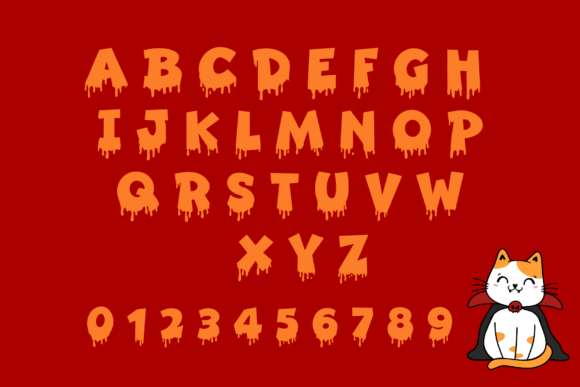
Unleash the Spooky Charm with Catcula Font: A Whimsical Decor Font for Halloween and October-Themed Celebrations
Are you looking for a font that can add a touch of mystery and festive spirit to your designs? Look no further than Catcula, a whimsically-shaped decor font that is perfect for Halloween and October-themed celebrations. In this article, we will explore the unique features of Catcula and how it can elevate your creative endeavors.
The Origin of Catcula: A Font Born out of Whimsy and Festivity
Catcula is a decor font that is crafted to evoke the spirit of Halloween and October-themed celebrations. Its unique design is inspired by the playful and mysterious elements of the season, making it an ideal choice for designers who want to create eye-catching and engaging content.
The font’s whimsical shape is sure to capture the attention of your audience and add a touch of festivity to your designs. Whether you’re creating invitations, posters, or social media graphics, Catcula is the perfect gateway to enliven your creative endeavors with a touch of mystery.
Key Features of Catcula: A Font that Embodies the Spirit of Halloween
So, what makes Catcula stand out from other fonts? Here are some of its key features:
- Whimsical Design: Catcula’s unique design is inspired by the playful and mysterious elements of Halloween and October-themed celebrations.
- Festive Spirit: The font exudes a distinctively festive spirit, making it perfect for designs that require a touch of excitement and energy.
- Versatile: Catcula is a versatile font that can be used for a wide range of designs, from invitations and posters to social media graphics and more.
How to Use Catcula to Elevate Your Designs
Now that we’ve explored the key features of Catcula, let’s discuss how to use it to elevate your designs. Here are some tips:
- Pair it with Other Fonts: Catcula can be paired with other fonts to create a unique and eye-catching design. Try pairing it with a sans-serif font for a modern look or a script font for a more elegant feel.
- Experiment with Colors: The font looks great in a variety of colors, from bold and bright to muted and pastel. Experiment with different colors to find the perfect combination for your design.
- Use it for Headlines and Titles: Catcula is perfect for headlines and titles, where its whimsical design can really shine.
- Add some Texture: Adding texture to your design can really make Catcula pop. Try adding a subtle texture or pattern to your background or using a textured version of the font.
The Benefits of Using Catcula for Your Designs
So, why should you use Catcula for your designs? Here are some benefits:
- Unique and Eye-Catching: Catcula’s whimsical design makes it a unique and eye-catching font that is sure to capture the attention of your audience.
- Festive Spirit: The font’s festive spirit is perfect for Halloween and October-themed celebrations, adding a touch of excitement and energy to your designs.
- Versatile: Catcula is a versatile font that can be used for a wide range of designs, making it a great addition to your font library.
In conclusion, Catcula is a whimsically-shaped decor font that is perfect for Halloween and October-themed celebrations. Its unique design and festive spirit make it an ideal choice for designers who want to create eye-catching and engaging content. With its versatility, ease of use, and range of benefits, Catcula is a great addition to any font library.
So, why not dare to embellish your cherished designs with Catcula and marvel at the transformative magic it bestows? Try it out today and see the difference it can make!
- What is Catcula? Catcula is a whimsically-shaped decor font that is perfect for Halloween and October-themed celebrations.
- What are the key features of Catcula? Catcula’s key features include its whimsical design, festive spirit, versatility, and ease of use.